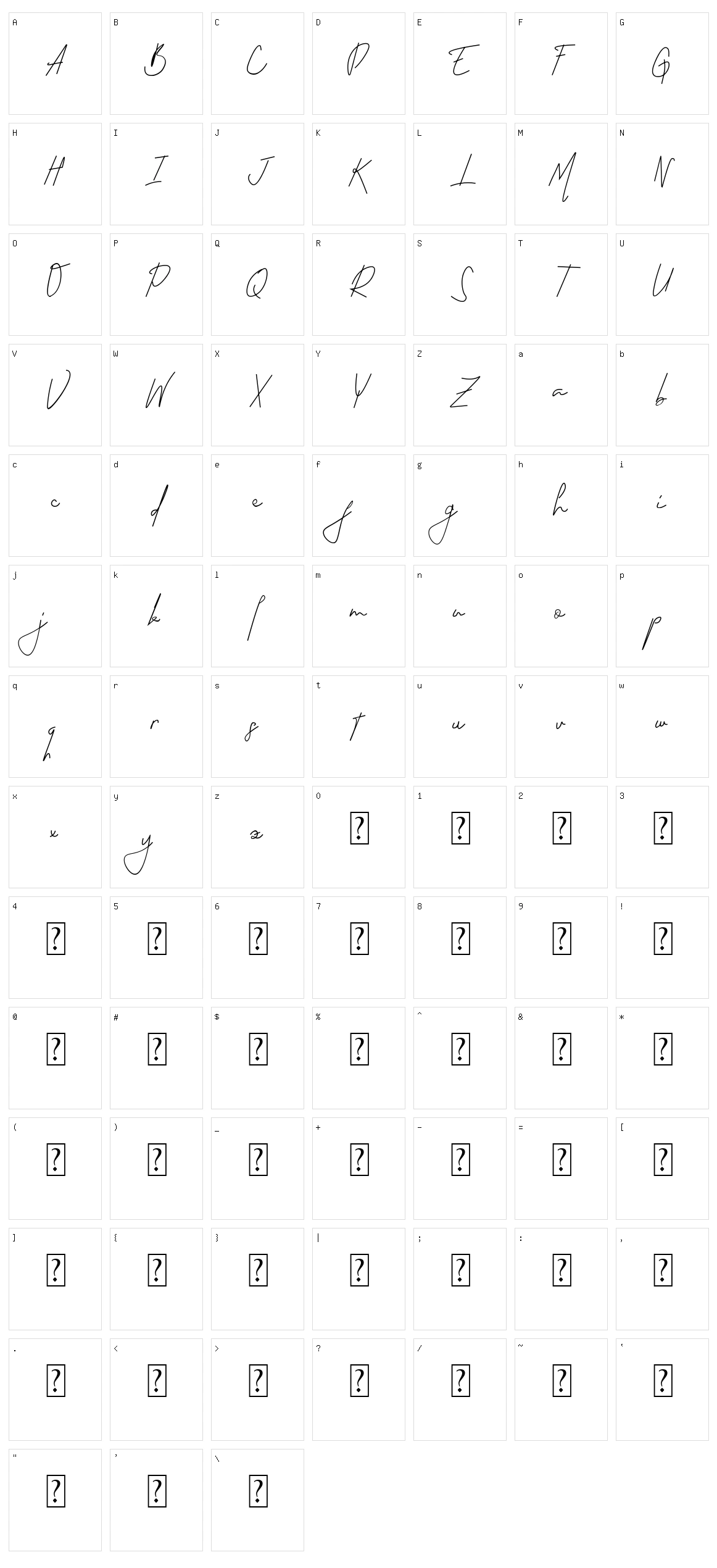
The free font Permata is carefully designed by Niki Studio, showcasing a thoughtful balance of creativity and usability and falls under the Script font style. When you download the ZIP file, it contains only 17.5 KB of font files, making it lightweight and quick to download. Please review the license details below to understand permitted usage and distribution rights. If license information is not available, we recommend using this font for personal projects only or contacting the author directly for commercial usage permissions.